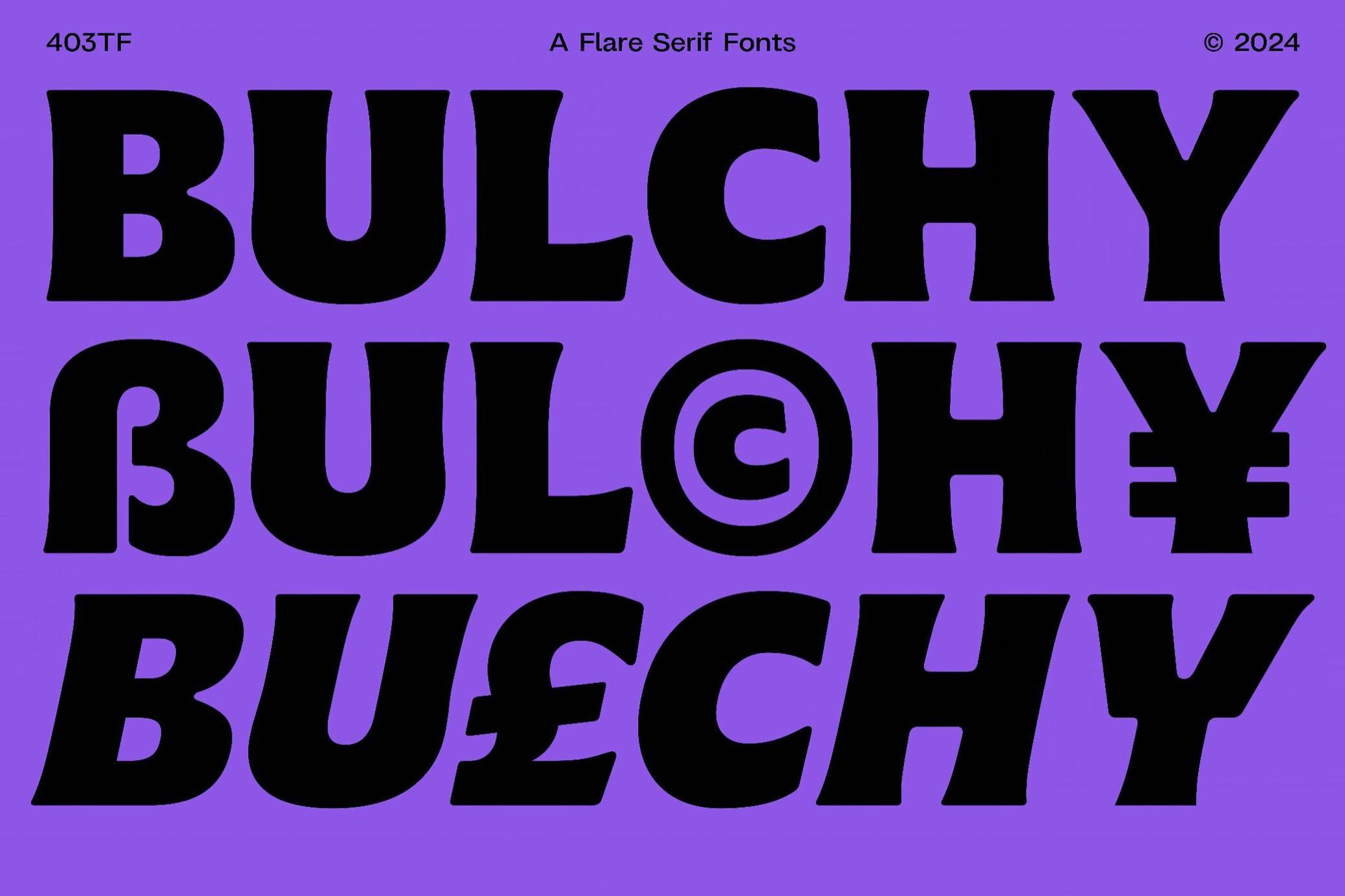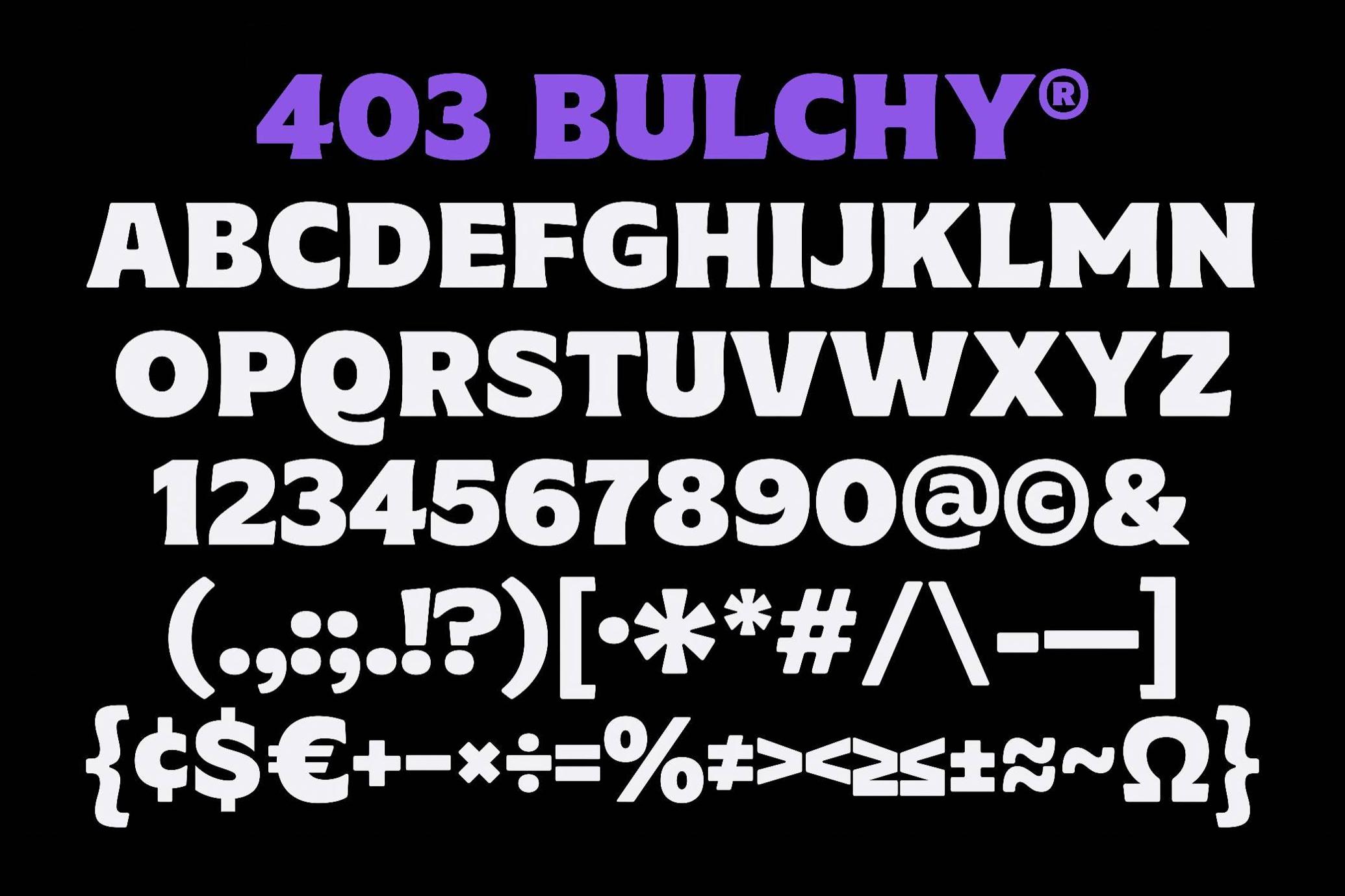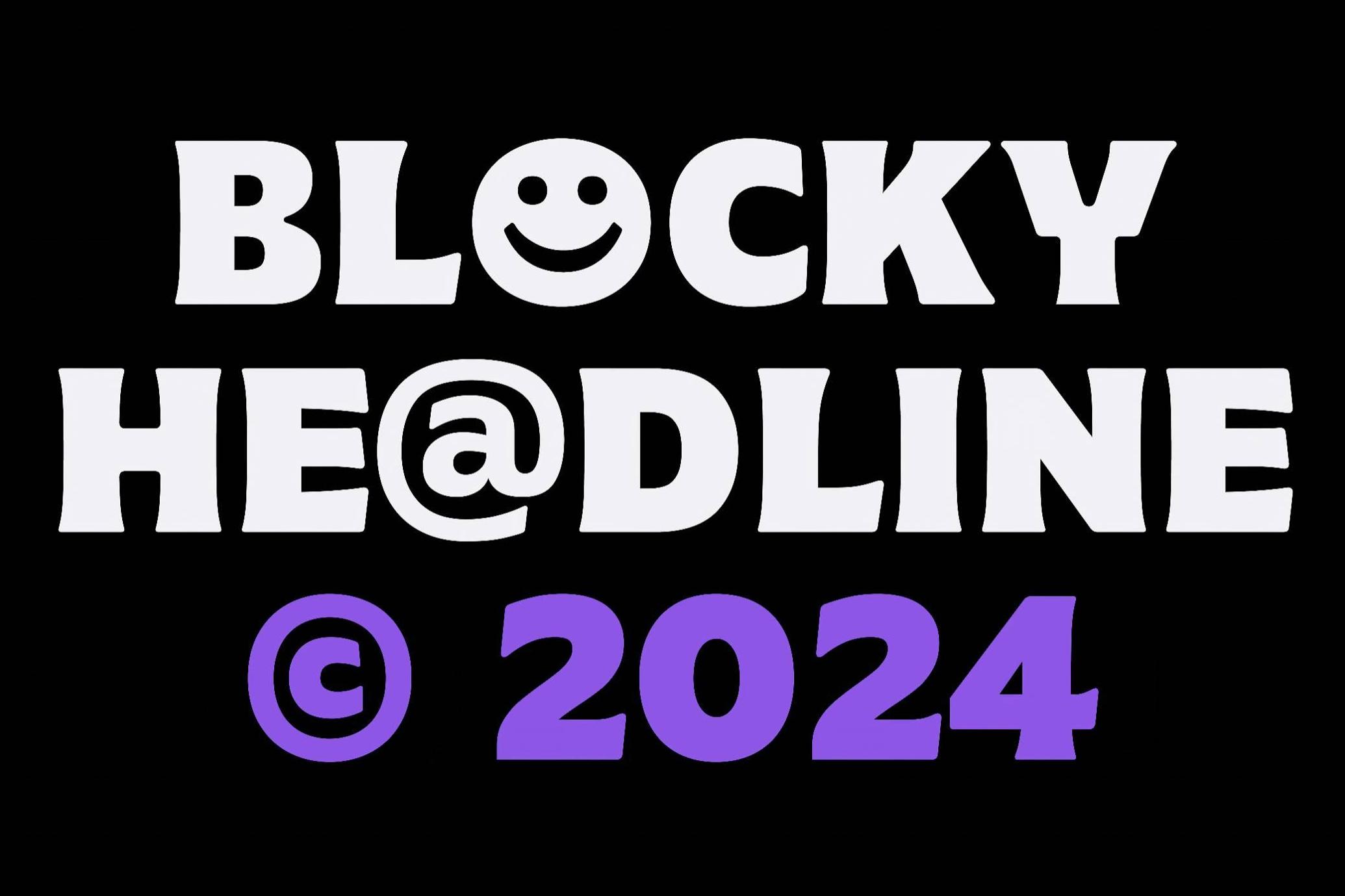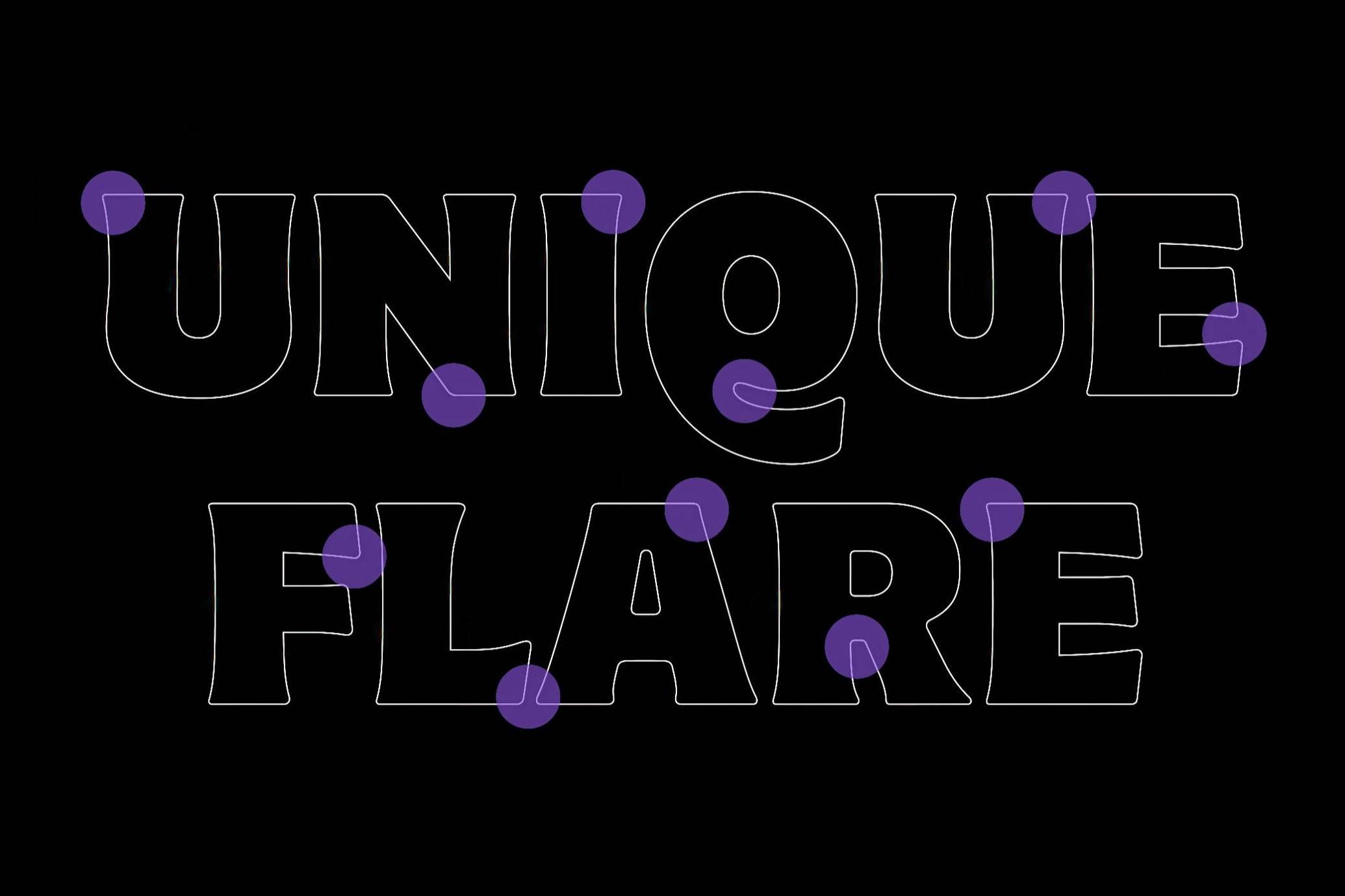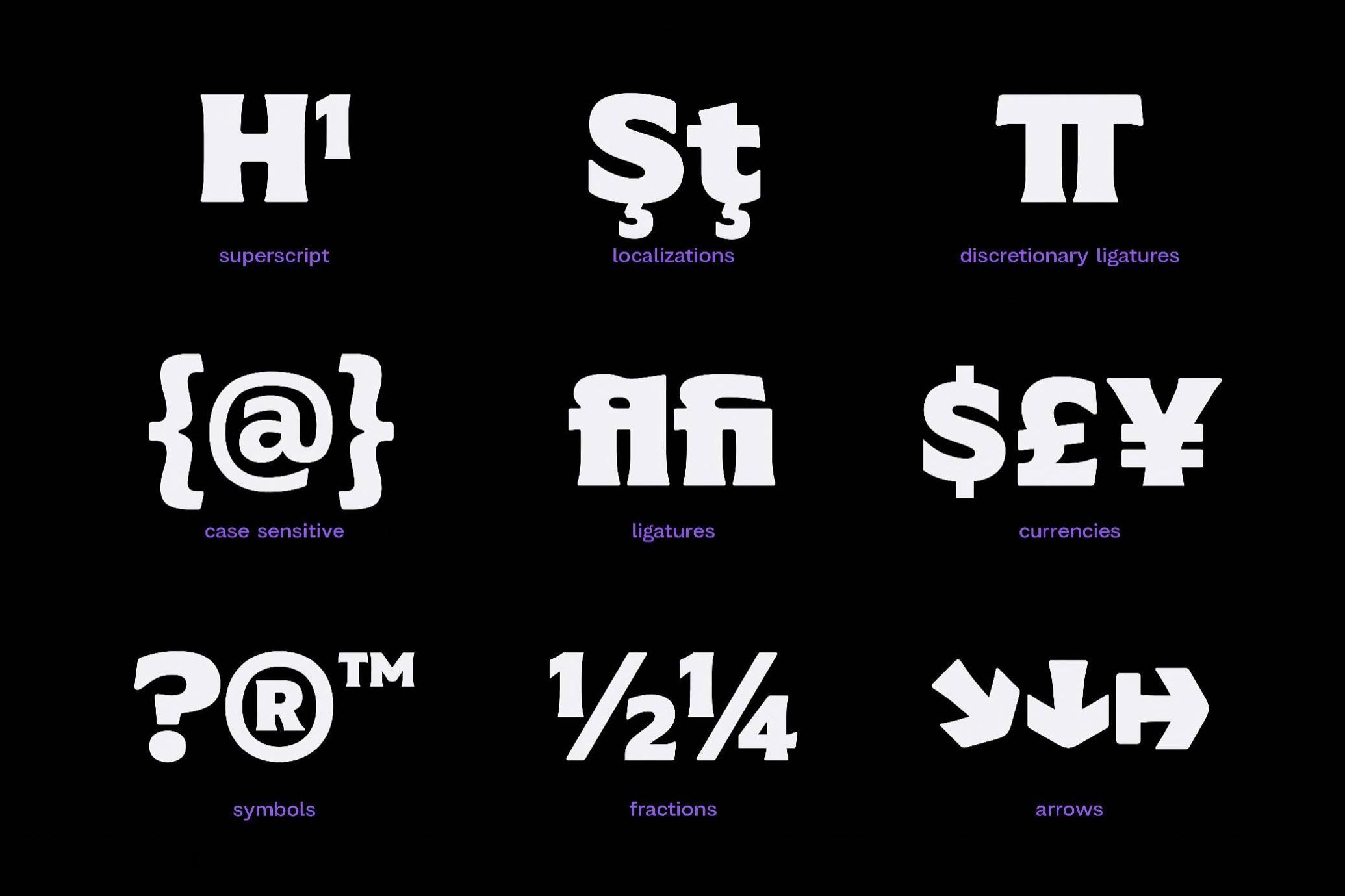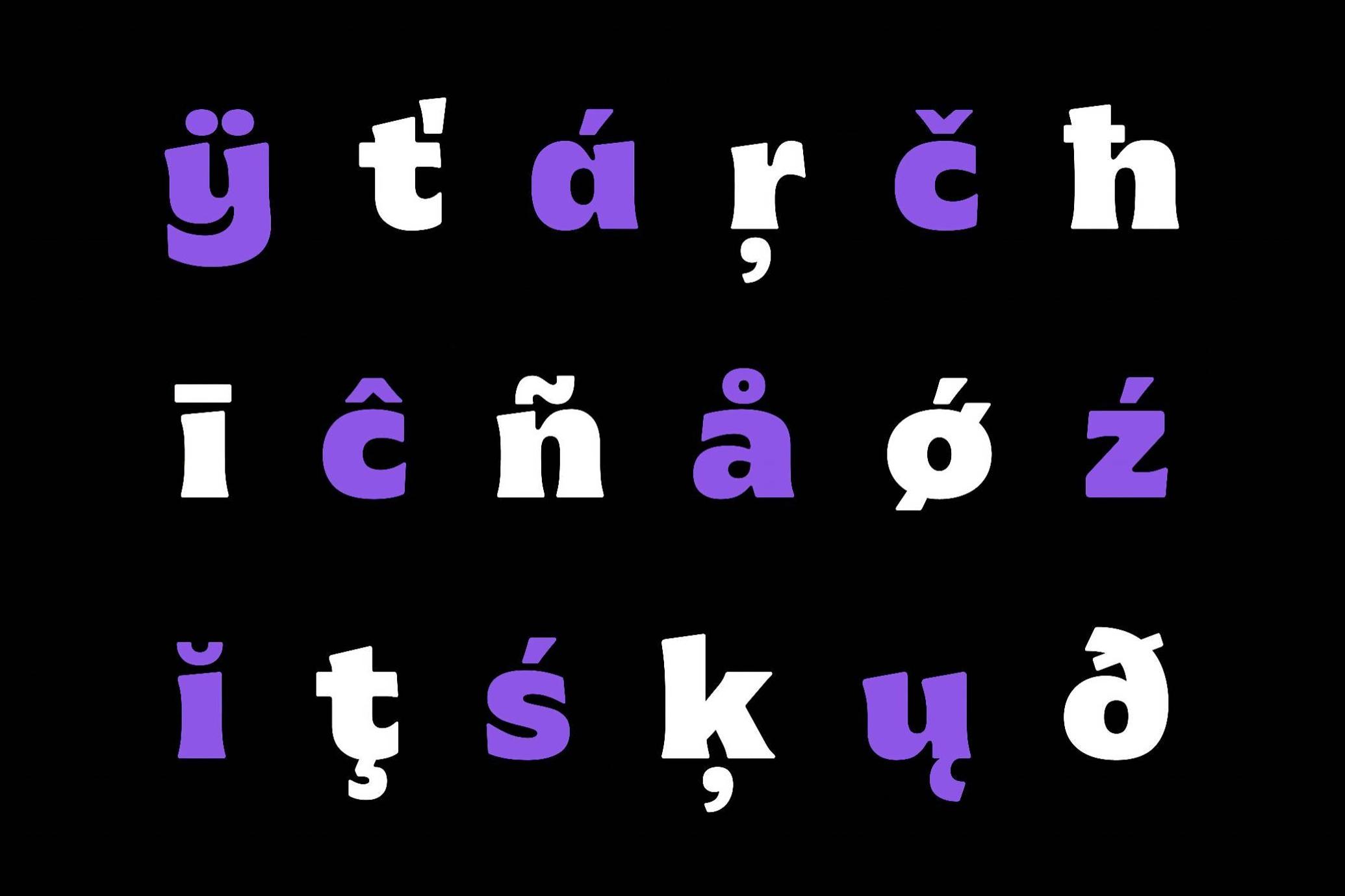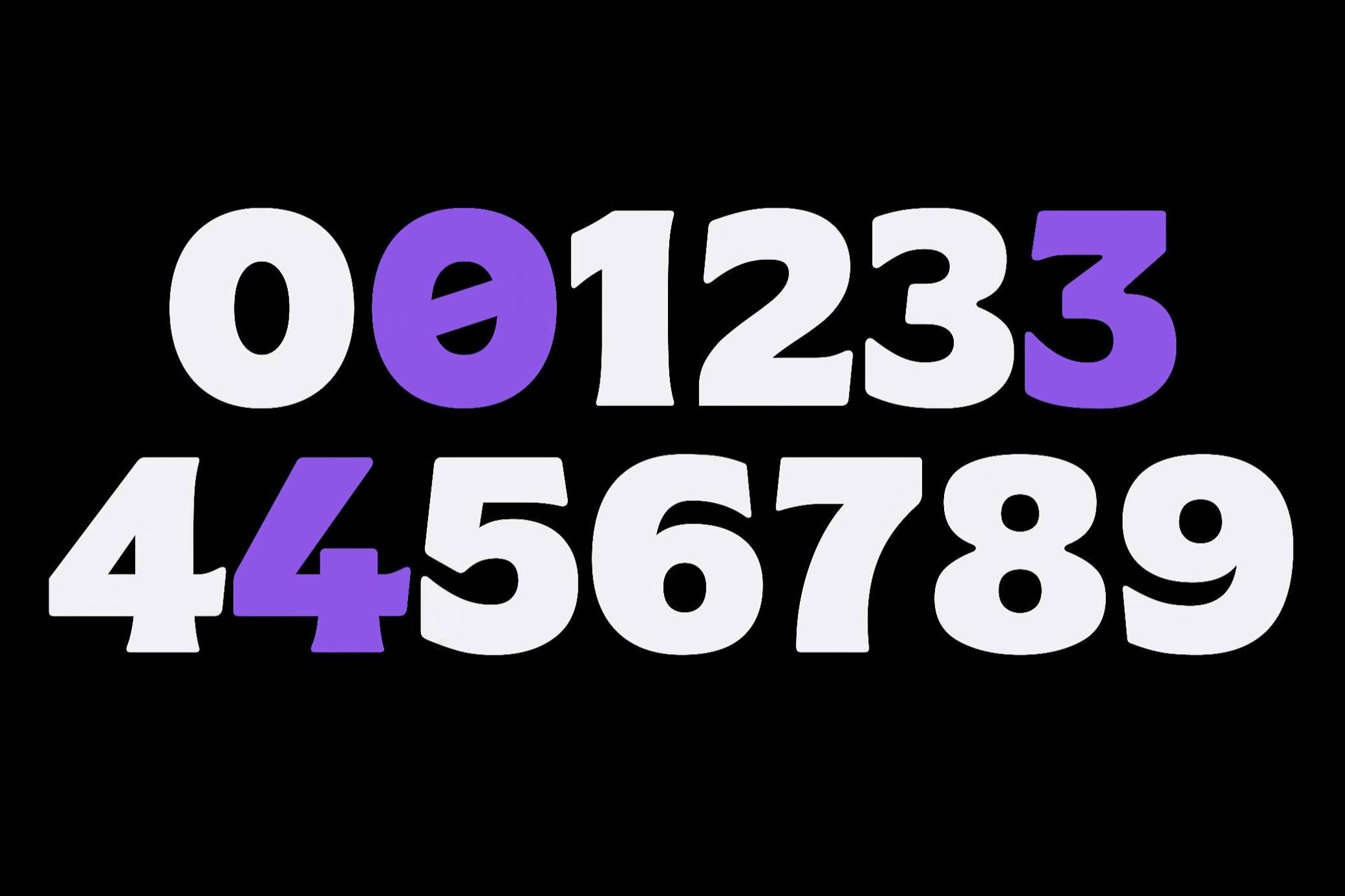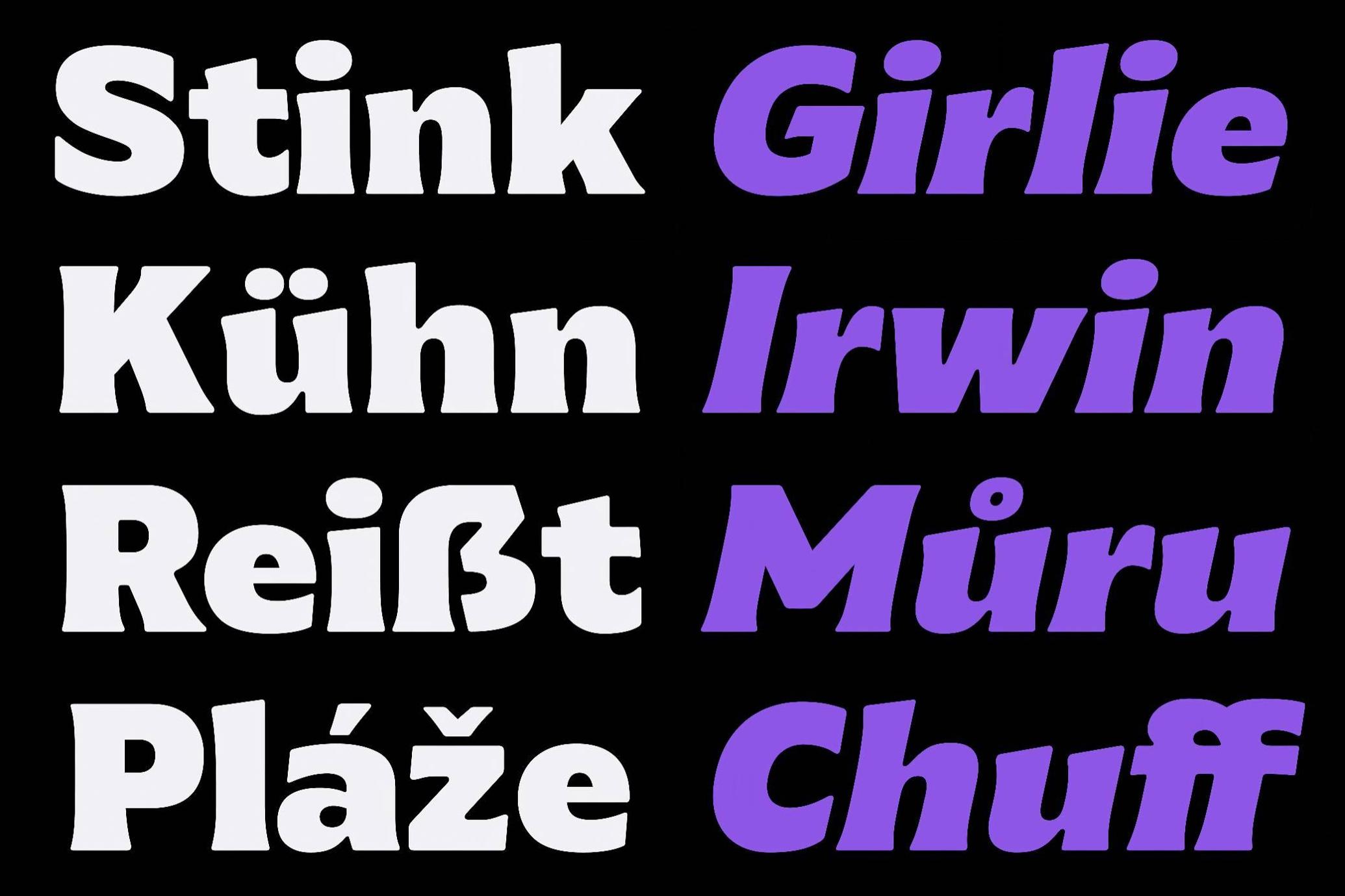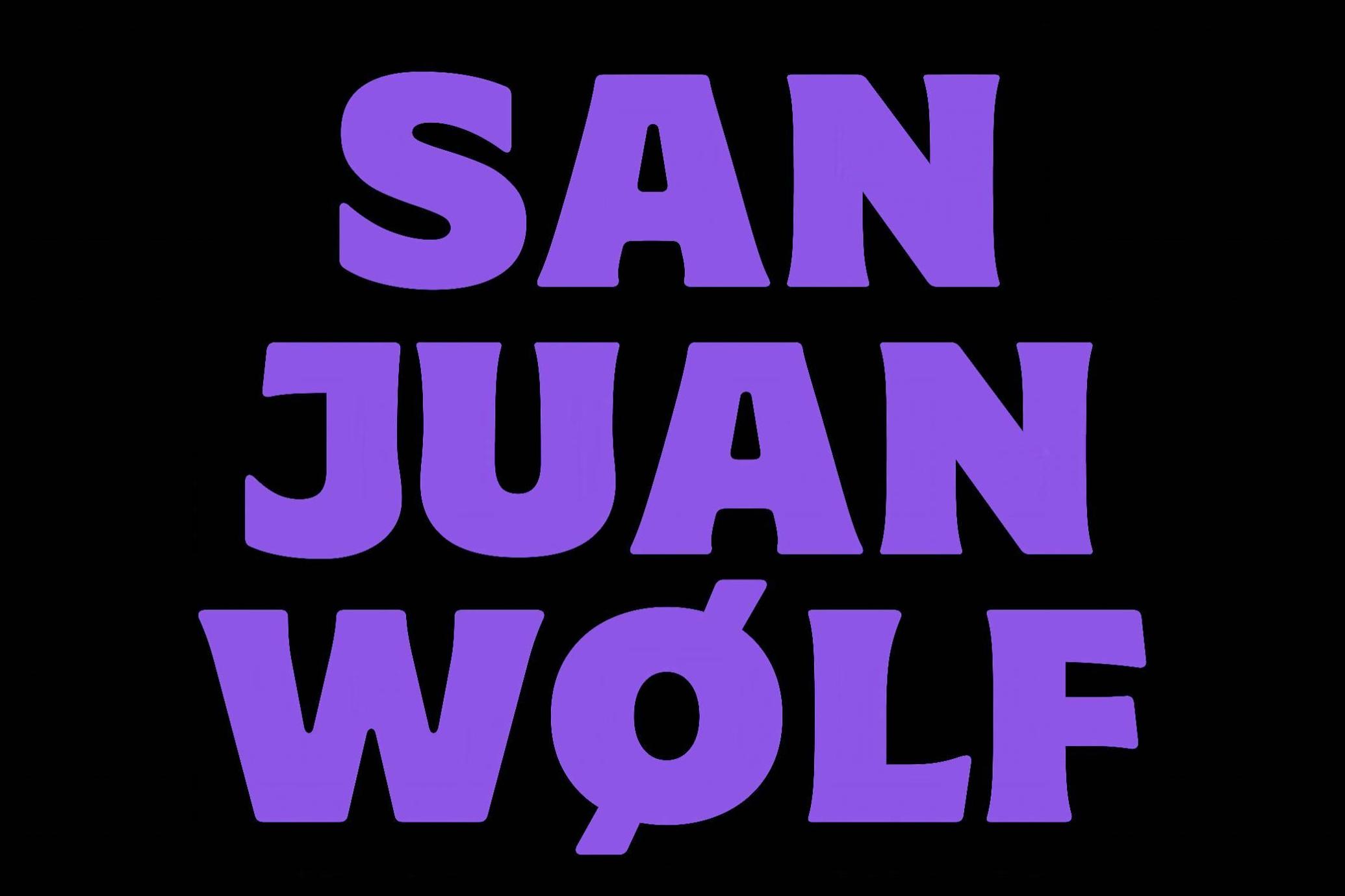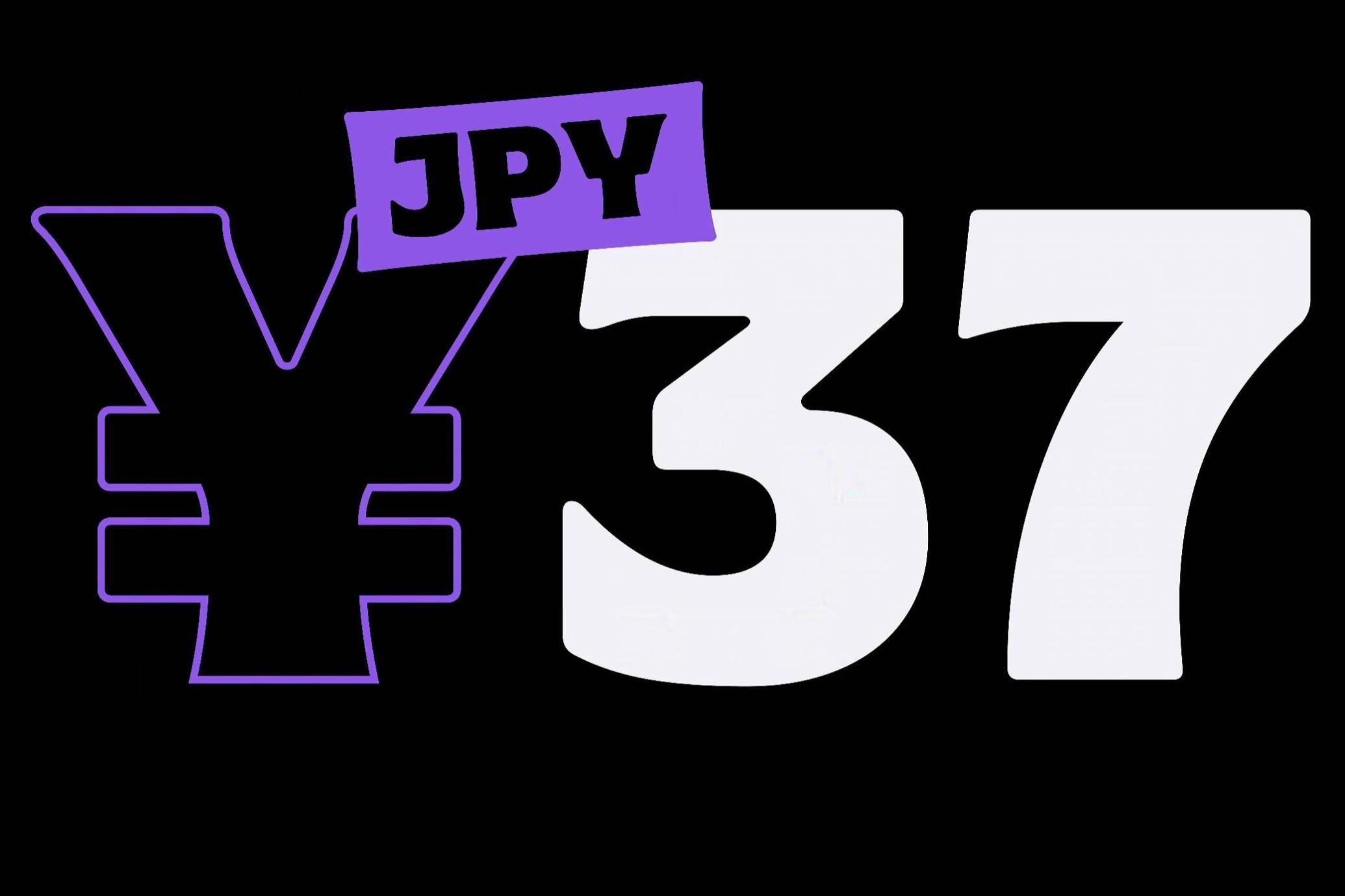
Bulchuy Sans Serif Font
Slant
Some follow rules. Bulchy asks, “What rules?” and redraws the page. With its chunky curves, exaggerated serifs, and playful proportions, this display type thrives on being loud, proud, and impossible to ignore. If fonts had personalities, Bulchy would be the one telling jokes too loud at the back of the room.
Bulchy includes 493 glyphs per style, supports 268+ languages, and is vailable in regular and slanted styles. Each letter is a boulder carved with charm, attitude, and a grin. It’s packed with thoughtful details like ligatures, stylistic sets, arrows, fractions, and case-sensitive forms, making it as versatile as it is bold.